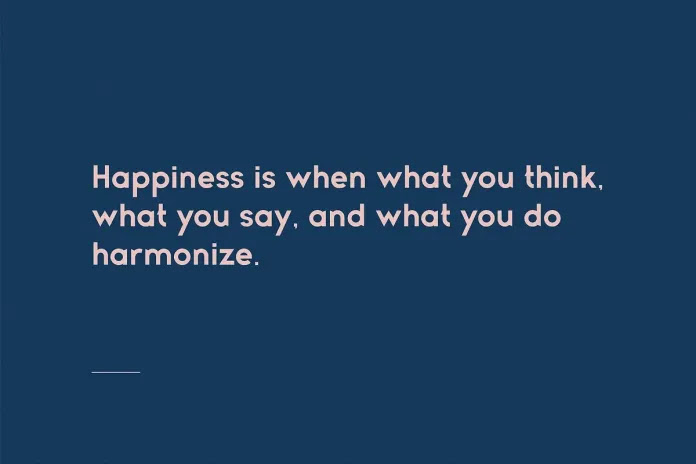
This is a timeless sans serif typeface created by OWL KING with tapered accents in some of the letters giving it a modern and bold character, even being quite prominent in thin characters.